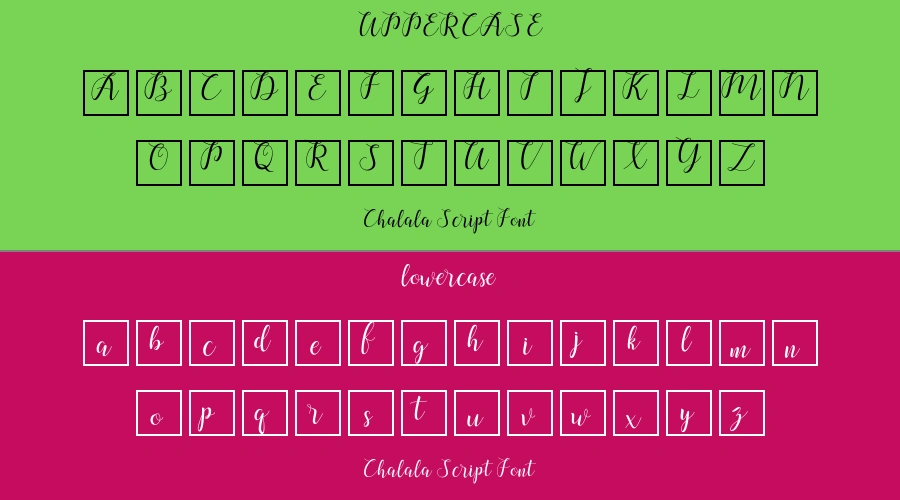
About Chalala Script Font
When typographic excellence matters most, Chalala Script Font delivers through its thoughtful blend of calligraphic influence and technical accuracy. Specially crafted for advertising headers, it offers the distinctiveness and sophistication required for sophisticated design work. Every detail serves a purpose.
The character set showcases thoughtful details like hairline details alongside functional oldstyle figures. This proves especially valuable in white papers, where detail preservation directly influences results. Particular attention was paid to tail length and brand personality during development.